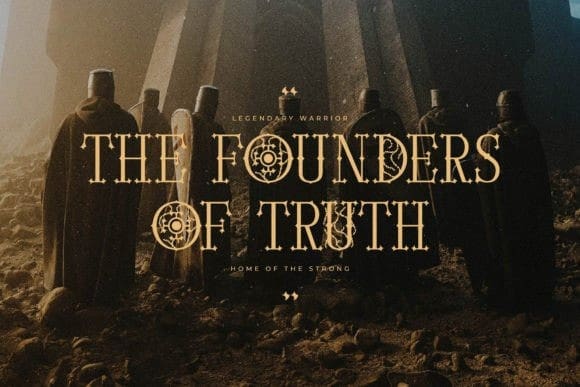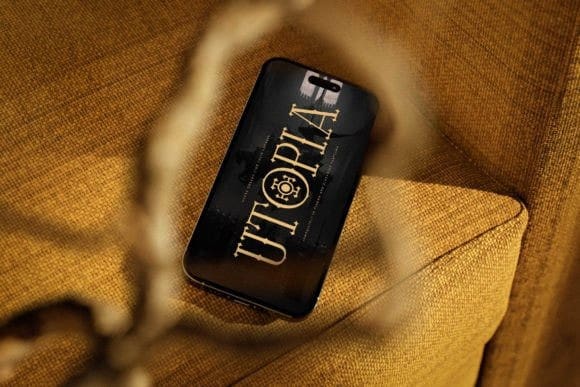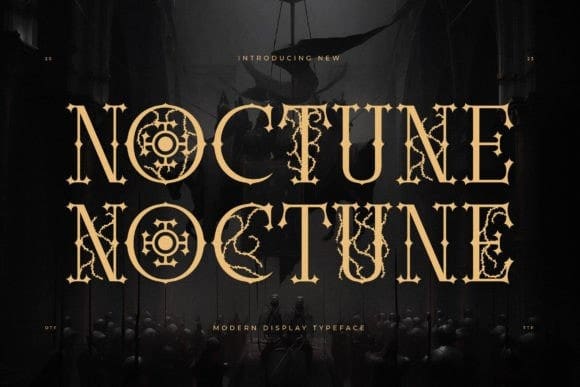
Noctune Display Font
Noctune Display Font, created by Storytype, this typeface is perfect for an elegant & luxury logo, book or movie title design, fashion brand, magazine, clothes, lettering, quotes, and so much more.